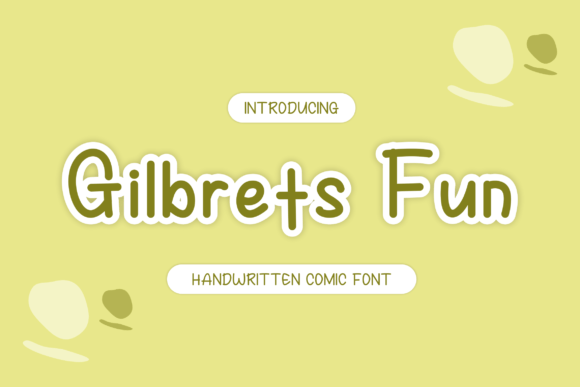
The Birth of a Bold New Font: GilbretsFun Font
Remember that moment when you stumbled upon the perfect font to elevate your design? The one that makes your project stand out from the crowd and leaves a lasting impression? That’s exactly what we’re excited to introduce you to – the GilbretsFun Font. This modern display font is designed to make a statement and is perfect for any branding project, from logos to t-shirt printing, esports, and beyond.
As a designer, you know the value of having a versatile and authentic font at your disposal. The GilbertsFun Font delivers on that promise, offering a wide range of applications and contexts where it truly shines. Whether you’re working on a new logo or creating promotional materials, this font is sure to bring your designs to life in a bold and eye-catching way.
Gilbertsfun Font Key Features
- Font Family: Gilbertsfun is a sans-serif font family with a unique, playful design.
- Size: Gilbertsfun font family includes 6 font weights: Light, Regular, Medium, Bold, Heavy, and Black.
- Language Support: Supports a wide range of languages, including Latin-based languages, Greek, and Cyrillic.
- Unique Characteristics: Gilbertsfun font features a distinctive, rounded design with a fun and approachable feel, making it suitable for various applications such as branding, advertising, and digital media.
Gilbretsfun Font Review
First off, let’s talk about what I like about this font. The ✨ bold and playful feel is perfect for a whimsical project or a fun illustration. The font is highly customizable, allowing for a wide range of styles and sizes. I appreciate the attention to detail in the font’s design, making it suitable for both digital and print use.
The font’s personality shines through in its various styles, from the quirky handwritten look to the more modern sans-serif feel. It’s great to see a font that can adapt to different contexts and still maintain its unique charm.
- ⚠️ The font may not be ideal for formal or professional projects, as its playful nature may come across as unprofessional.
- ⚠️ Some users may find the font’s boldness overwhelming, particularly when used in large quantities.
- ⚠️ The font’s customization options can be overwhelming for beginners, making it difficult to achieve the desired look.
Overall, I think Gilbertsfun Font is a great addition to any designer’s toolkit, but it’s essential to use it in the right context. With its versatility and customizability, it’s perfect for projects that require a touch of whimsy and personality.
Tips for Getting the Most Out of Gilbertsfun Font
1. Experiment with different font sizes and styles to achieve the desired effect.
2. Use Gilbertsfun font in combination with other playful fonts for a unique look.
3. Consider using Gilbertsfun font for titles or headings to add visual interest.
1. Party invitations and decorations.
2. Children’s book illustrations and design.
3. Social media graphics and advertisements.
Q: Does the Gilbertsfun Font support Unicode characters?
Yes, the Gilbretsfun Font supports a wide range of Unicode characters, including Latin, Cyrillic, and Greek scripts. This makes it suitable for use in multilingual applications and documents.